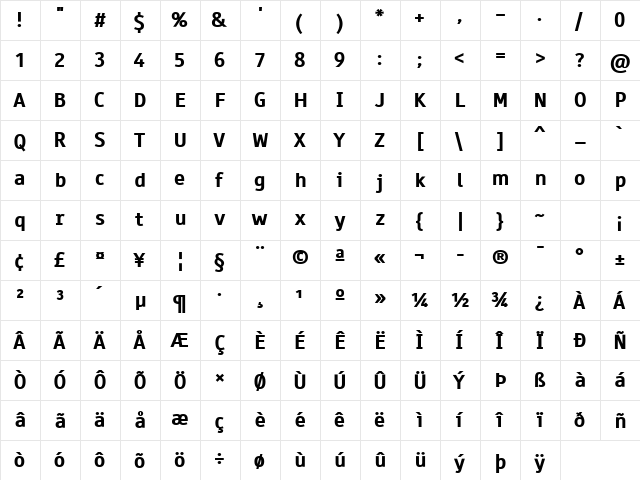
Paneuropa Highway Regular
| Foundry | Peter Wiegel |
| Designer | Peter Wiegel |
Design Context for Paneuropa Highway Typeface
Paneuropa Highway offers clean, dependable letterforms without strong stylistic allegiance, making it a practical choice for designers who need flexibility.